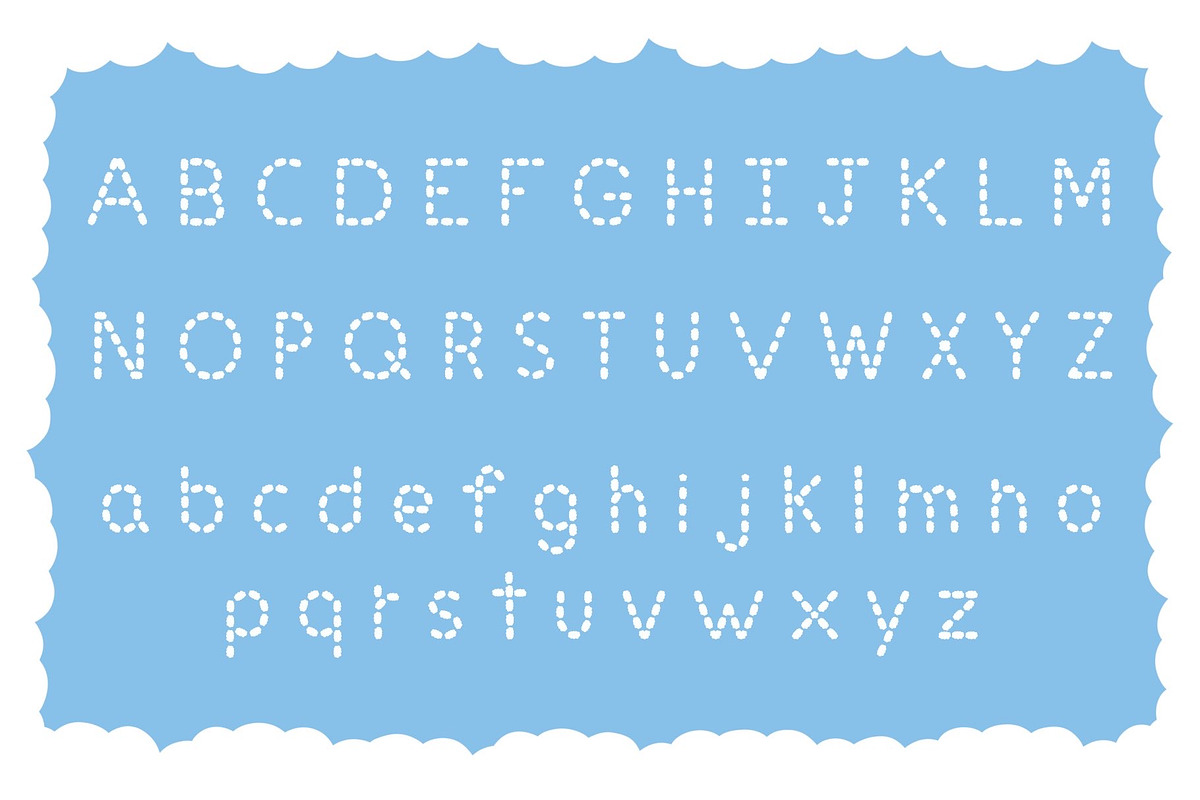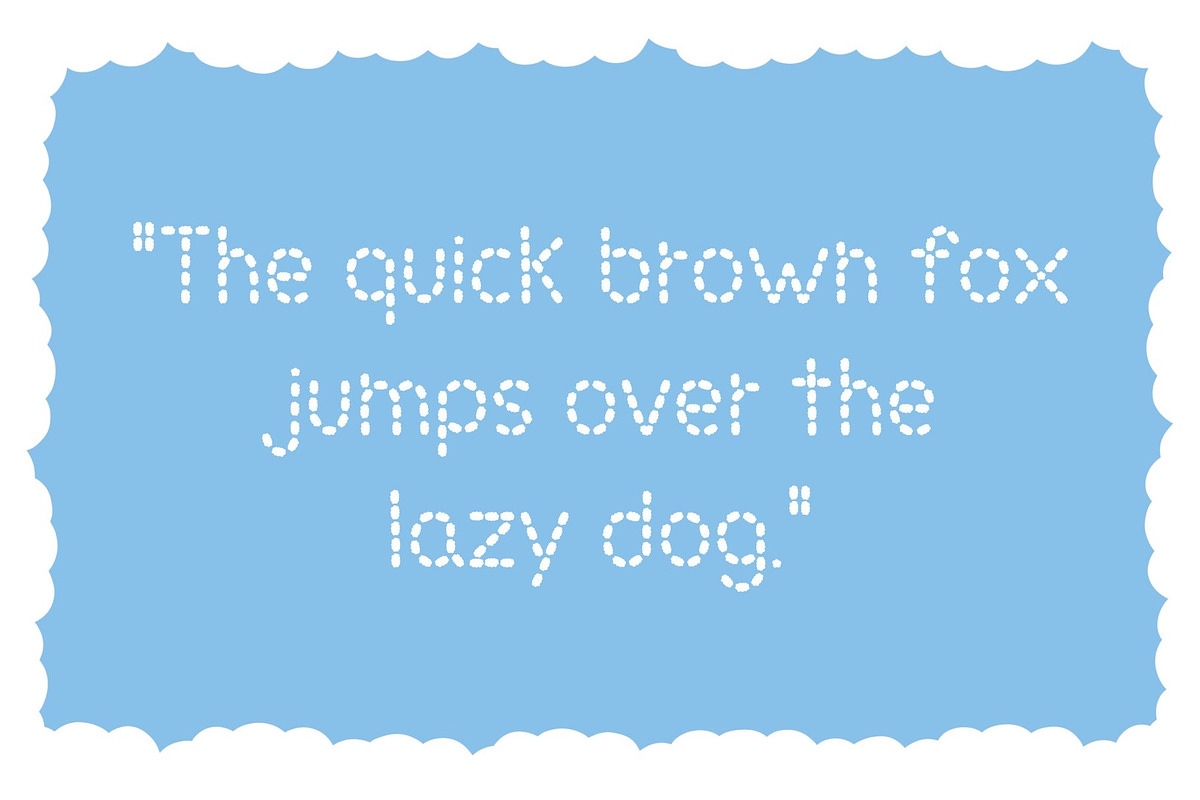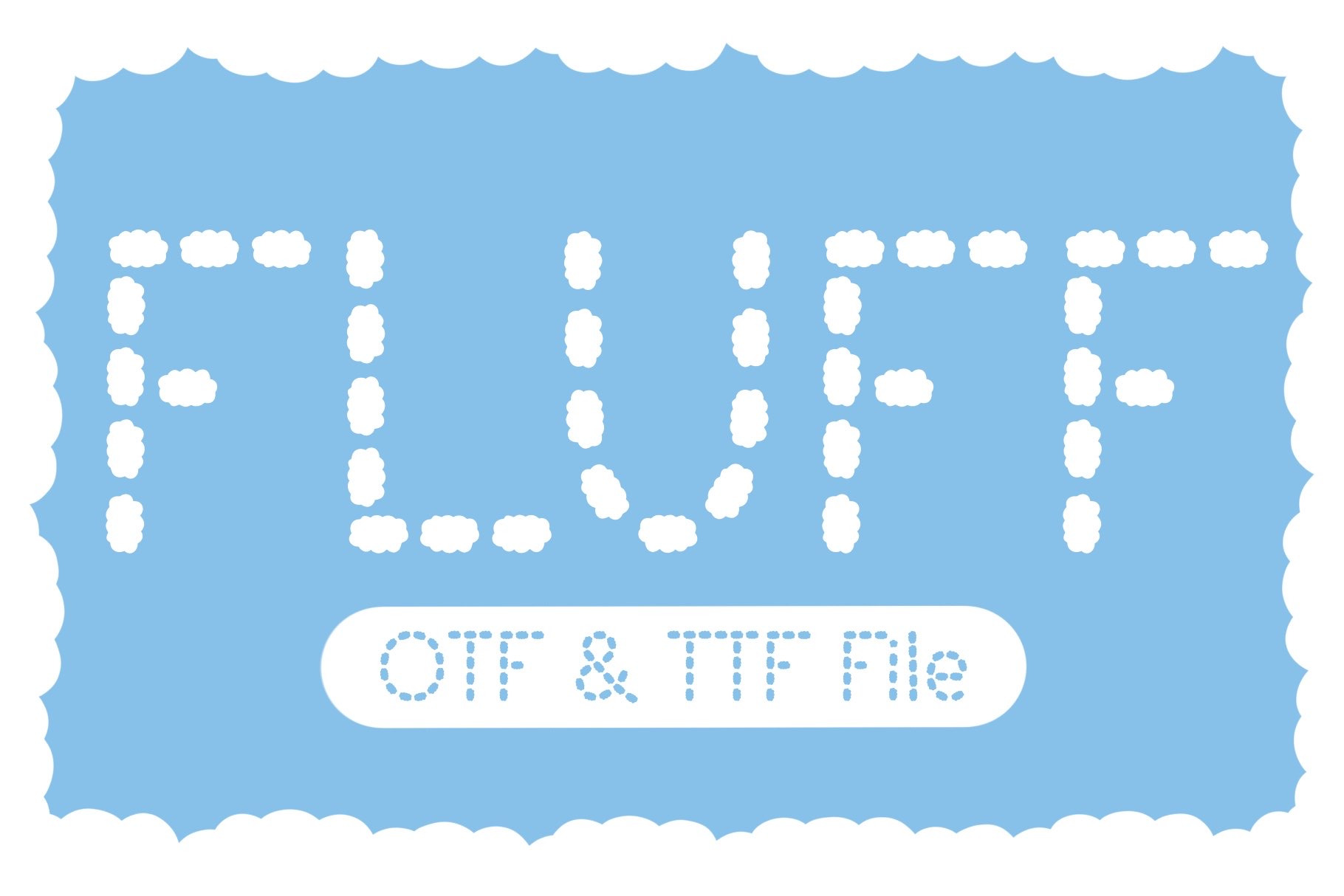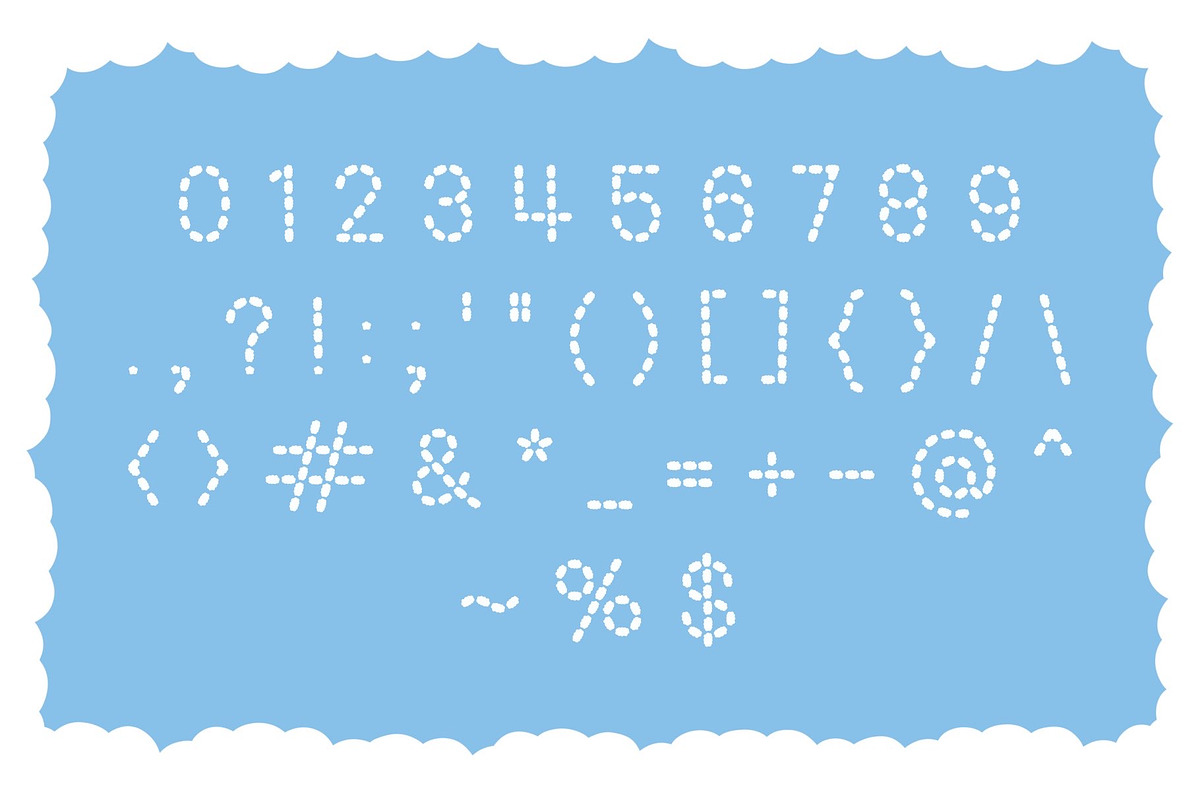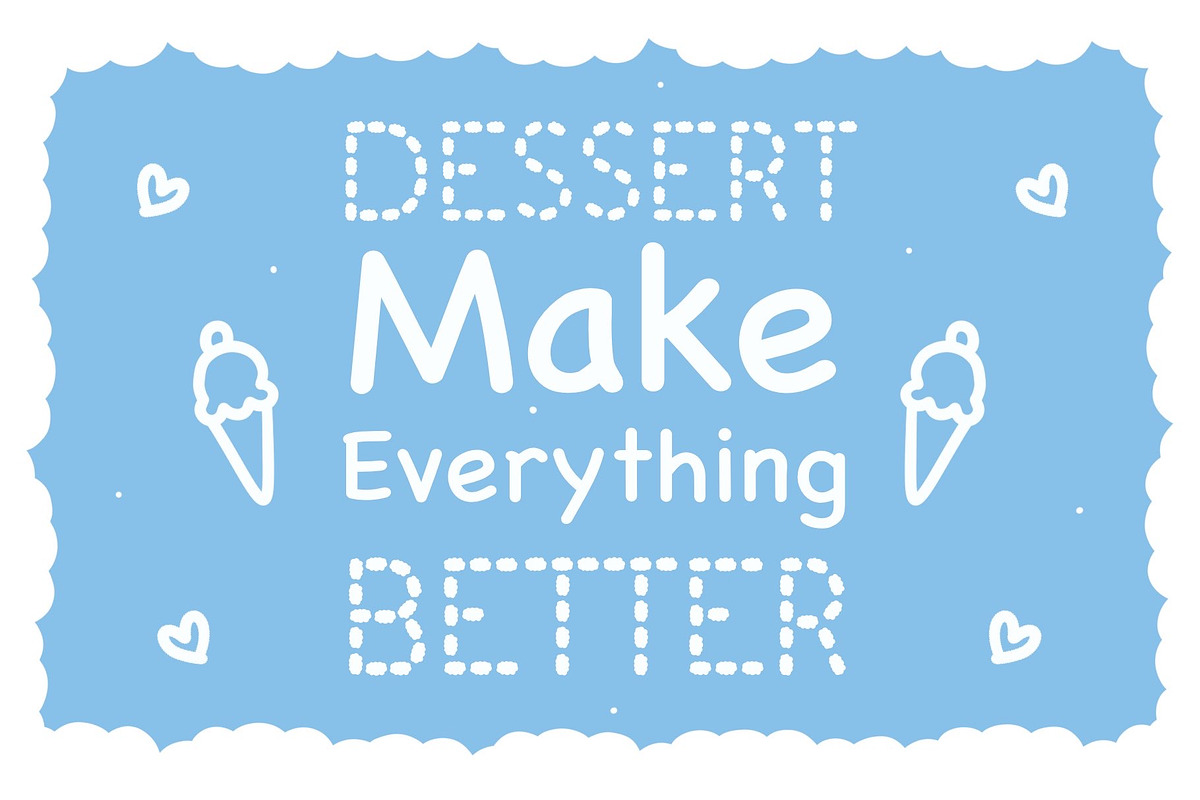
Fluff Line | Display Font
Fluff Line font is a dashed line font where each dash is replaced with a fluffy cloud shape. Perfect for your personal projects and various projects. From invitations to posters, social media graphics, journals, and much more.
- Font includes: uppercase, lowercase, numbers, and punctuation